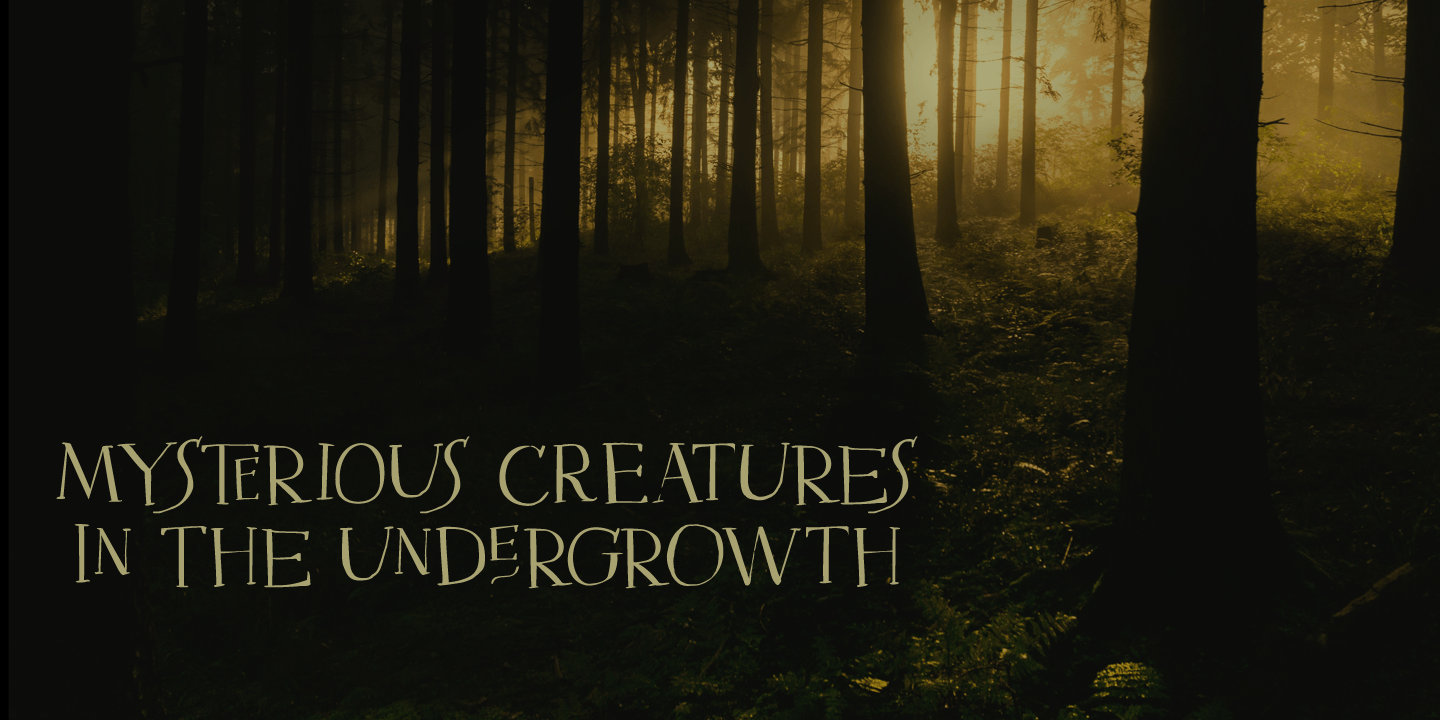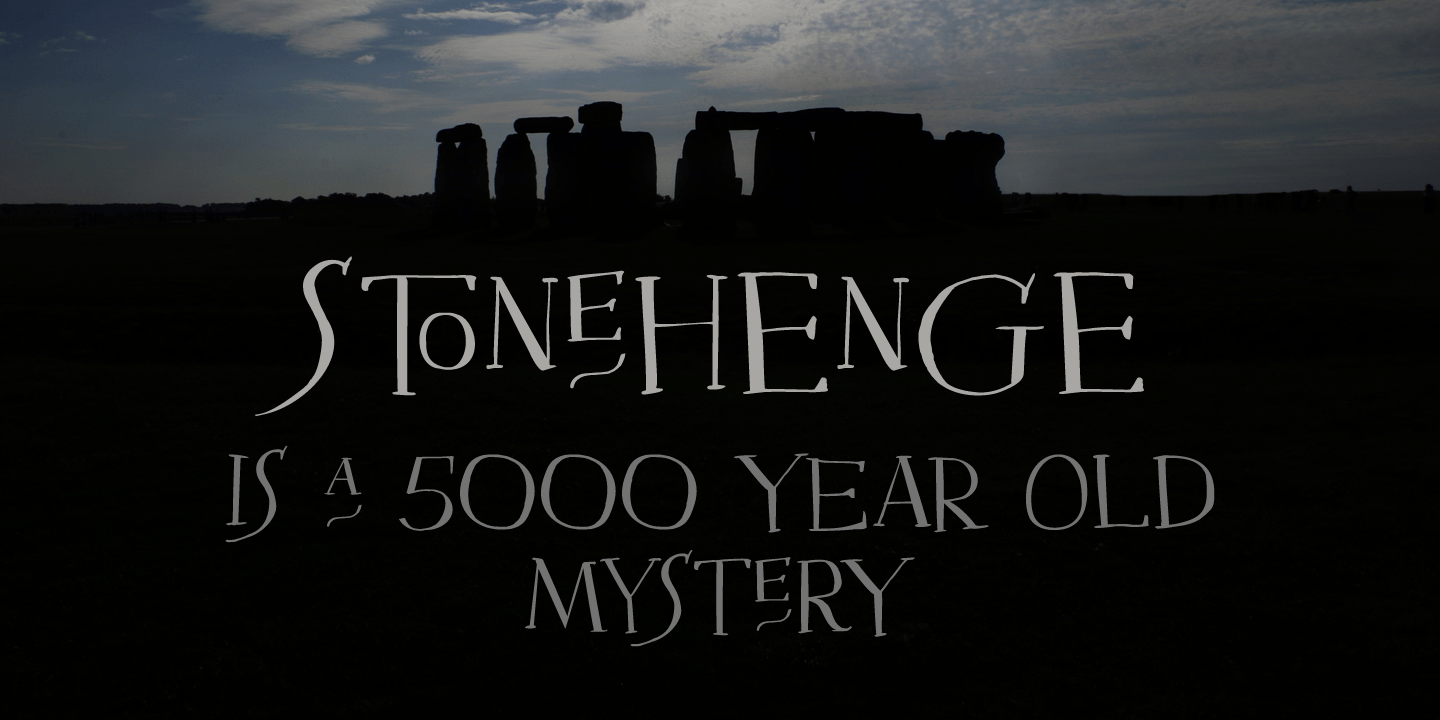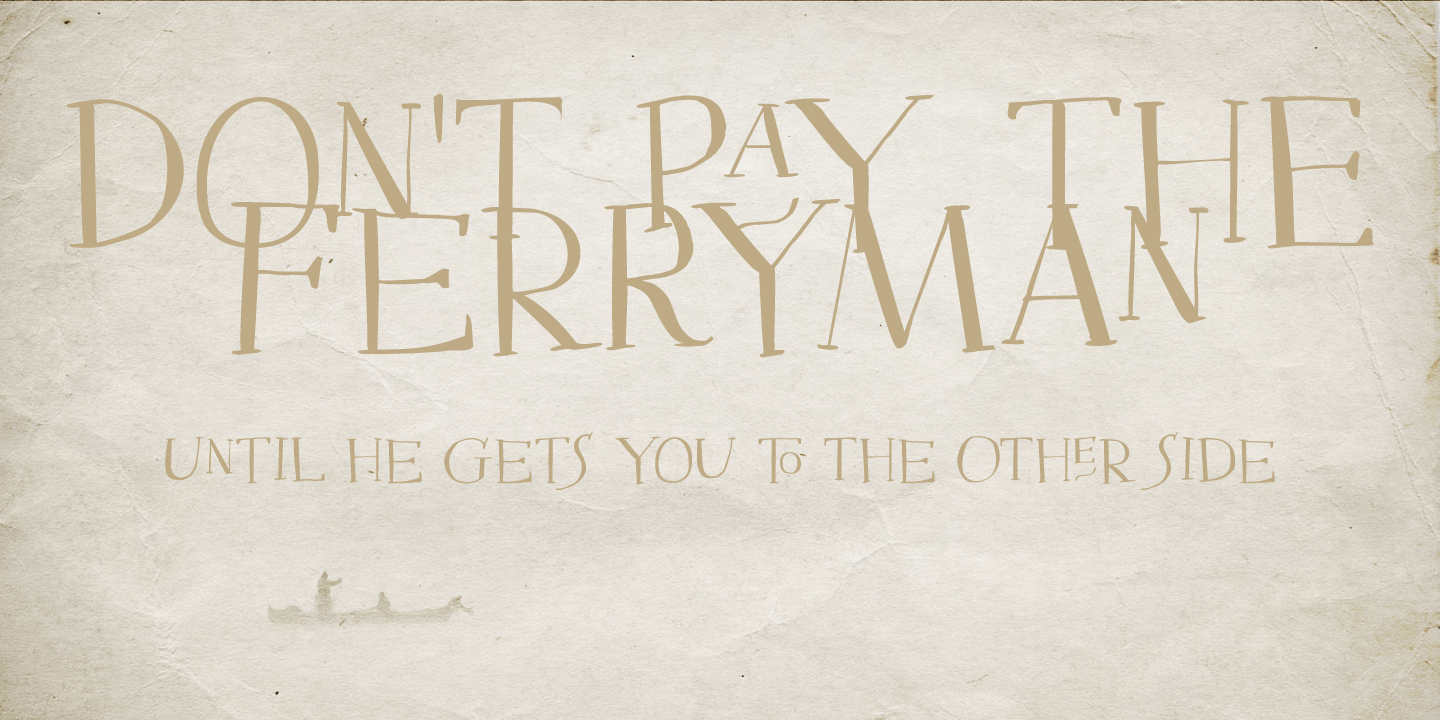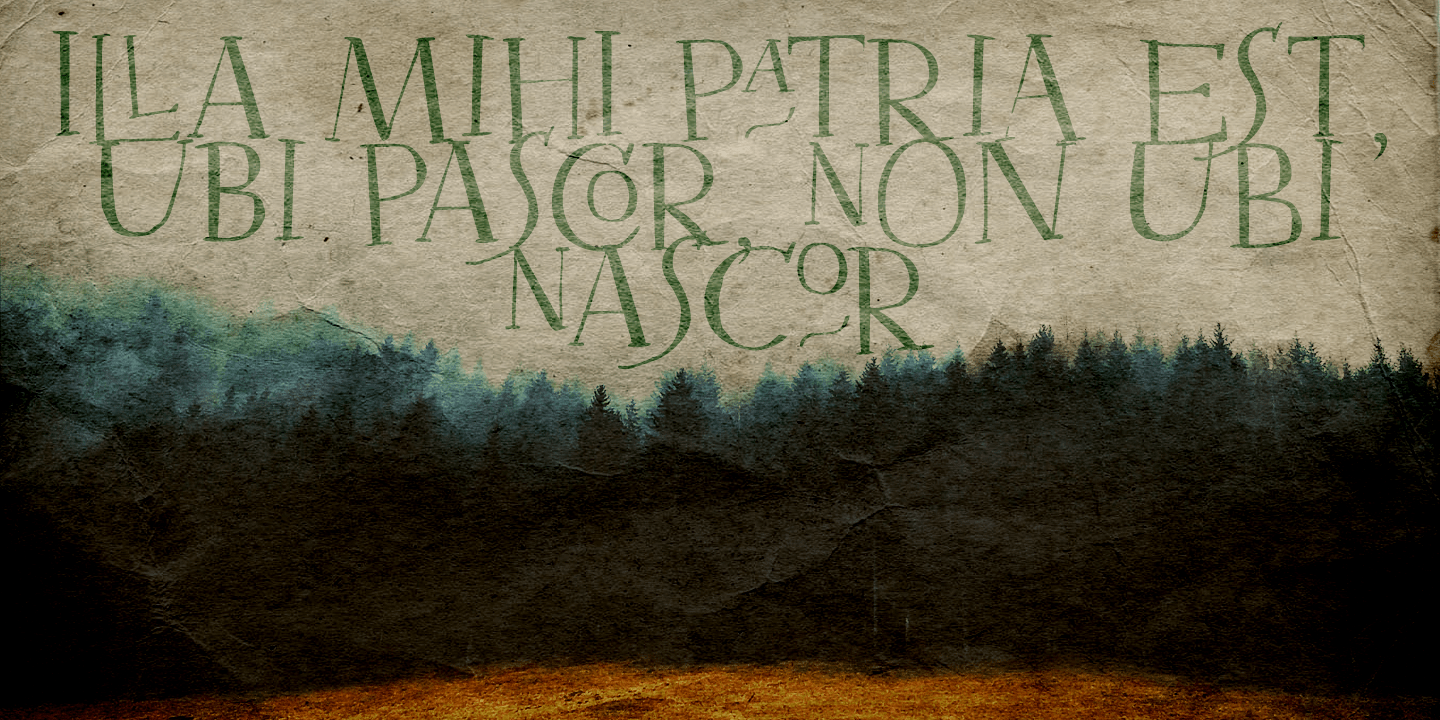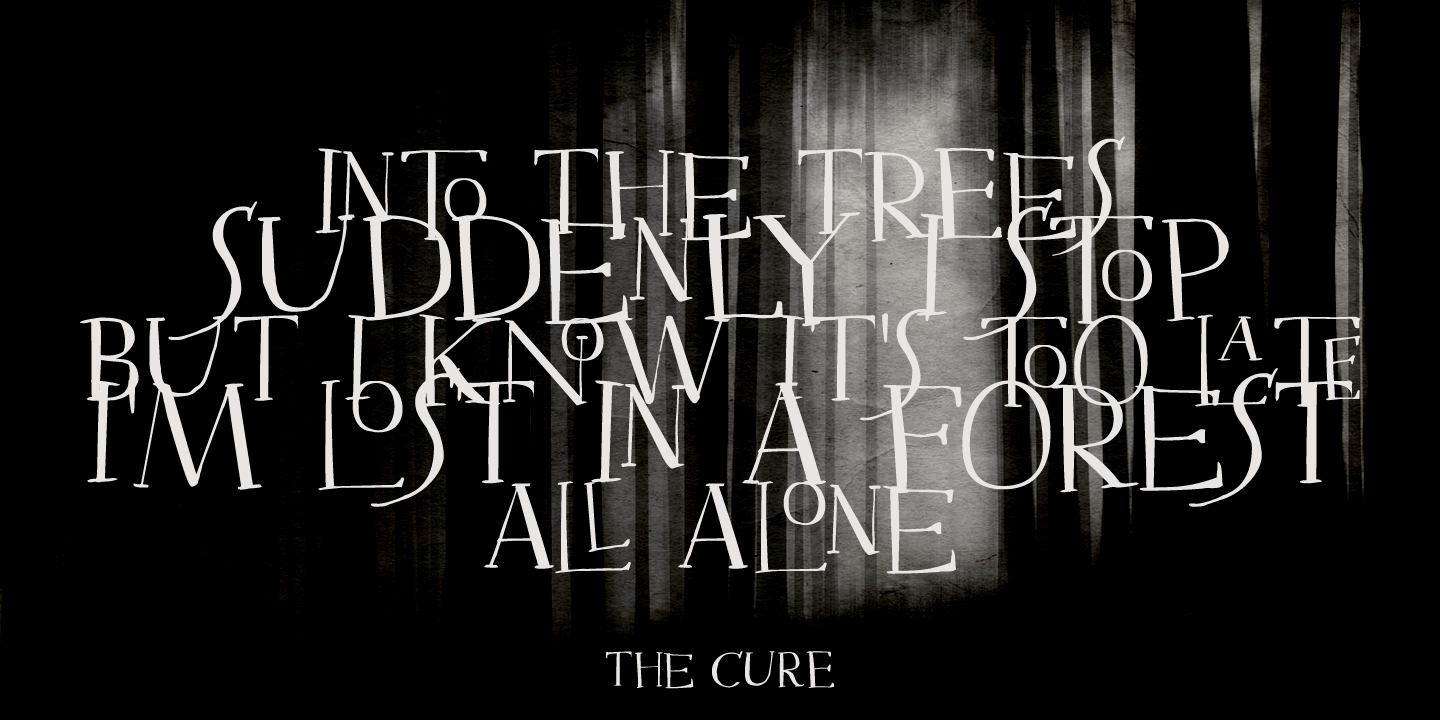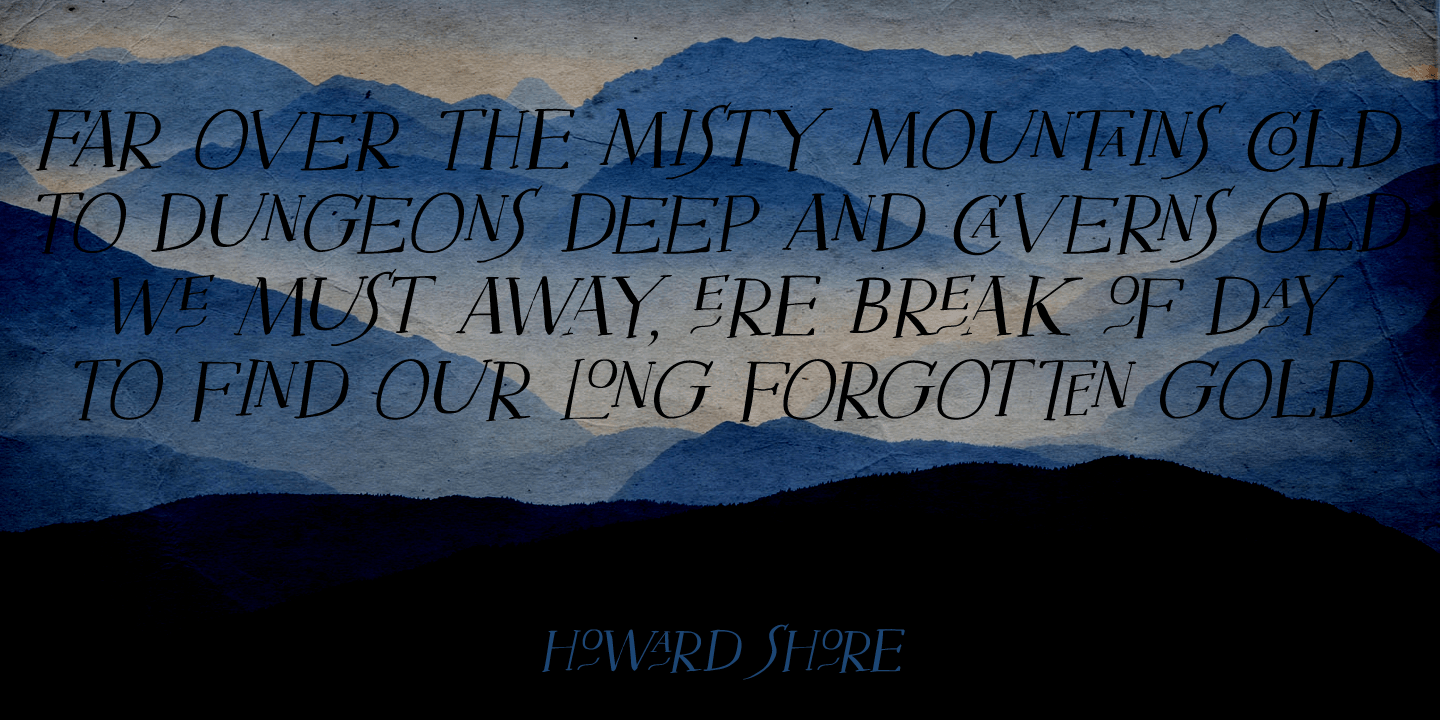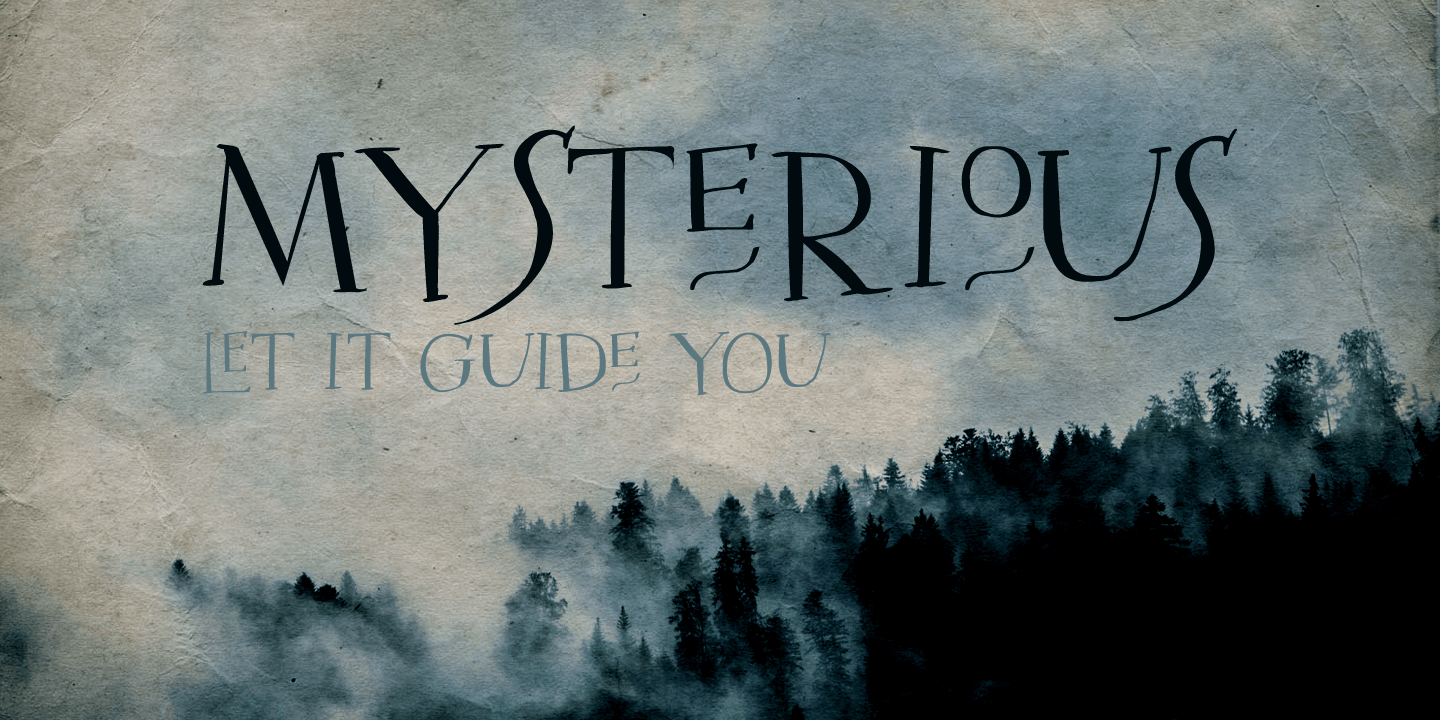
Mysterious
About Mysterious
Mysterious is a bit of an unusual font. It looks old fashioned, but it comes with cool stylistic alternates, it could be a didone, but it is not (really), it looks formal, but it is rather scary. Mysterious was more or less based on the titling pages…